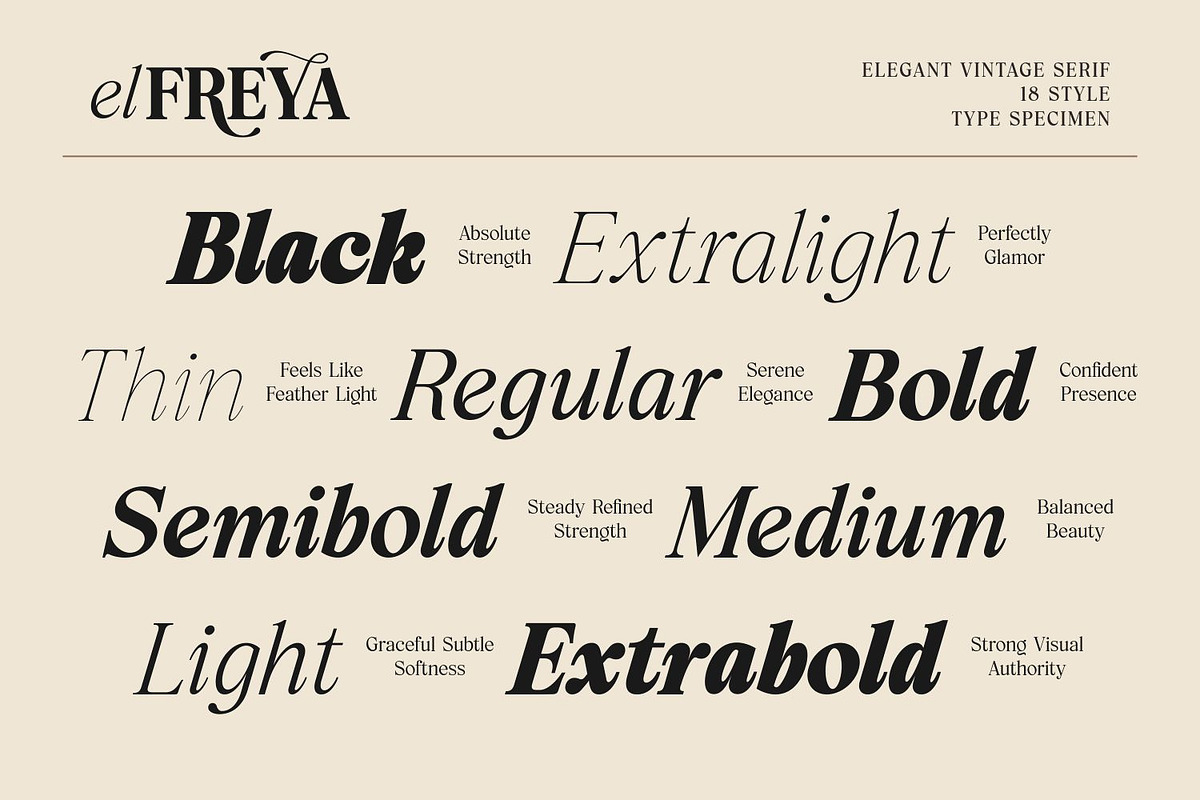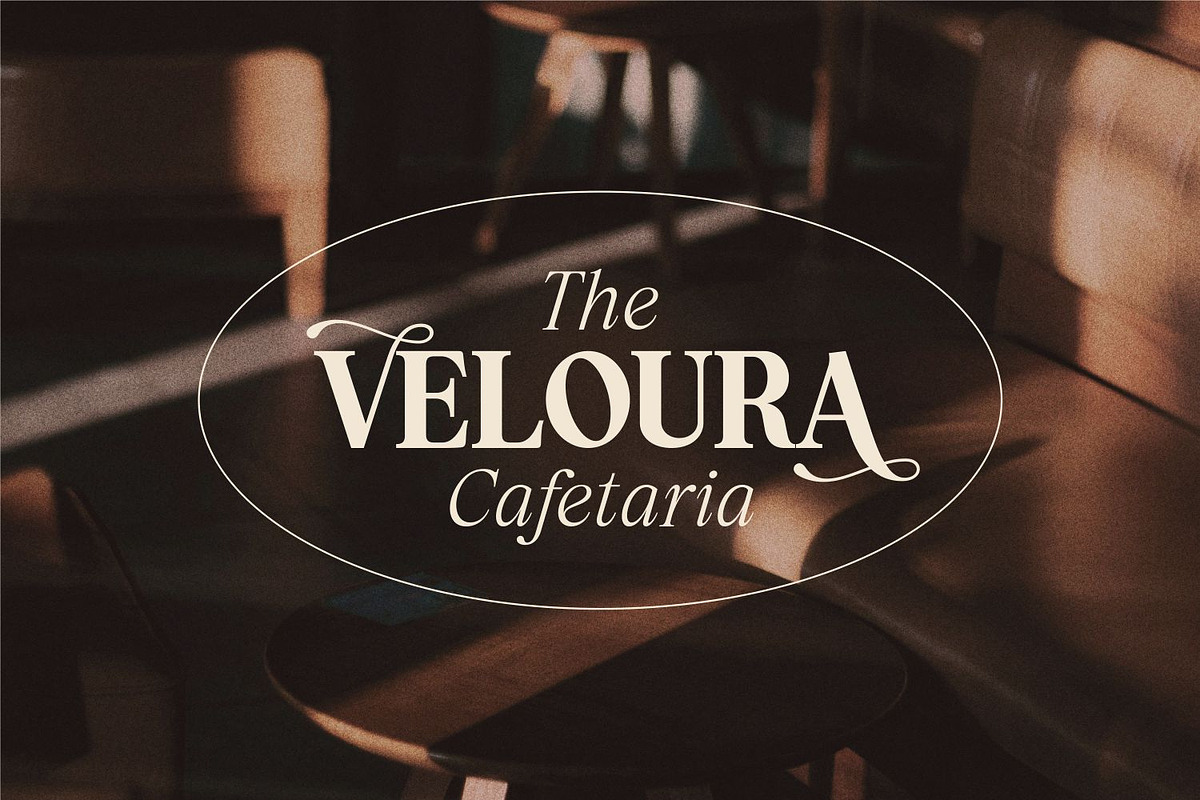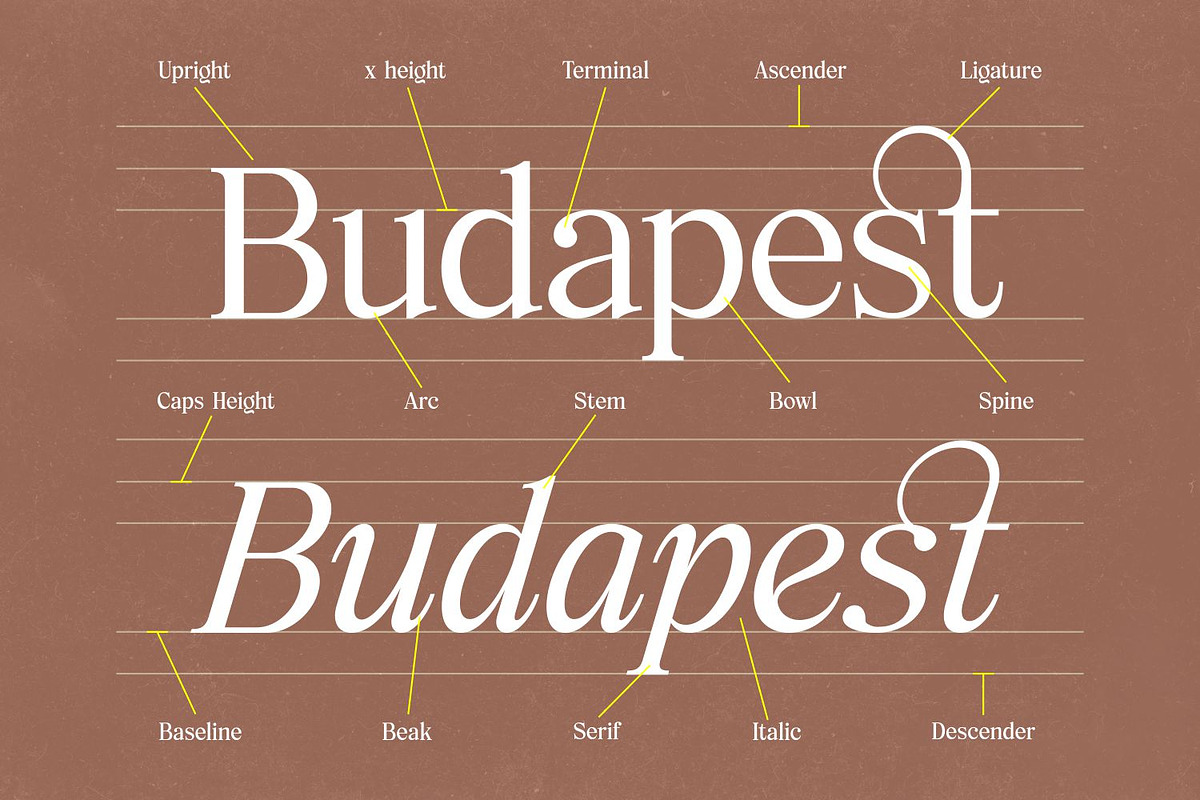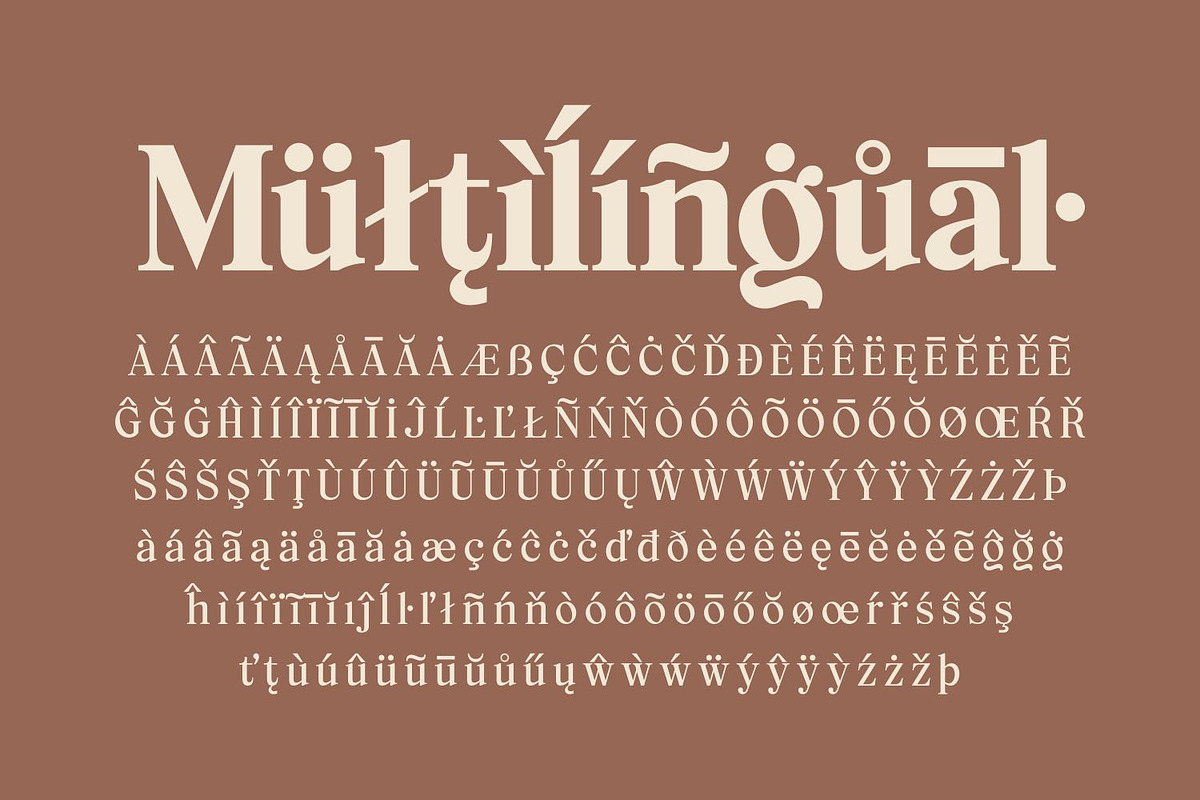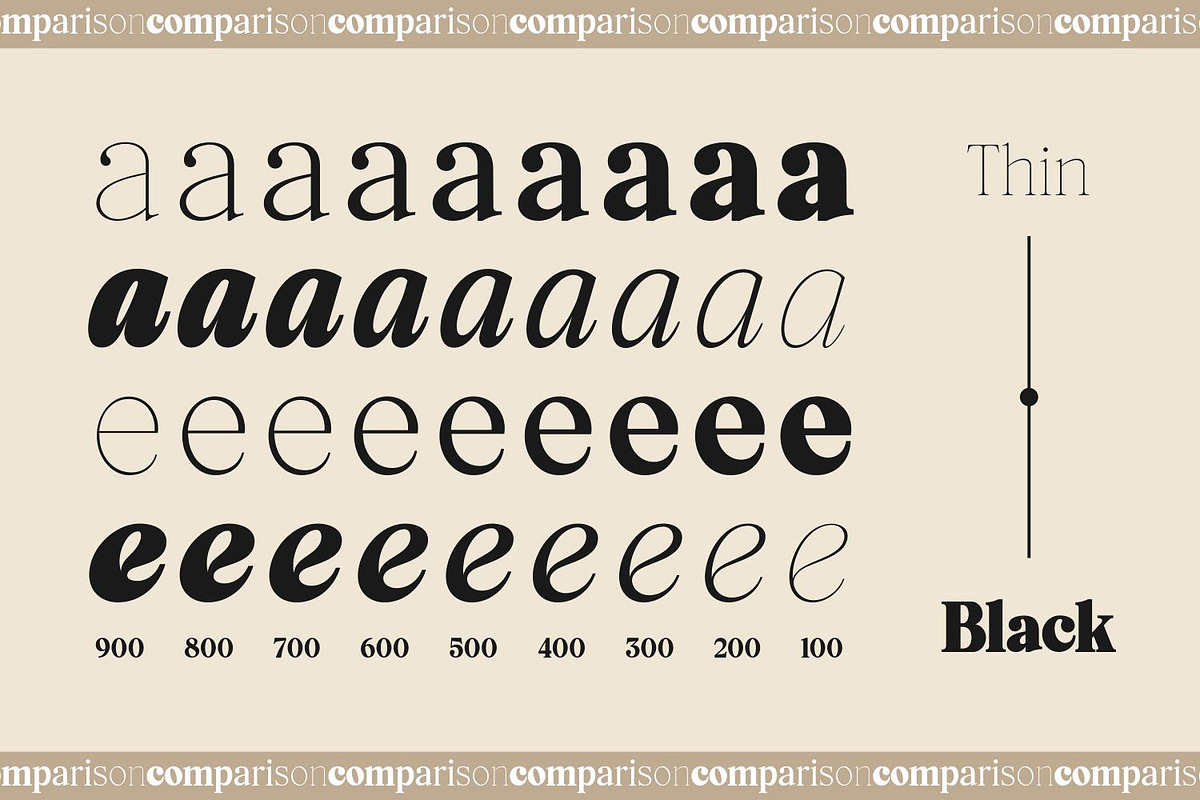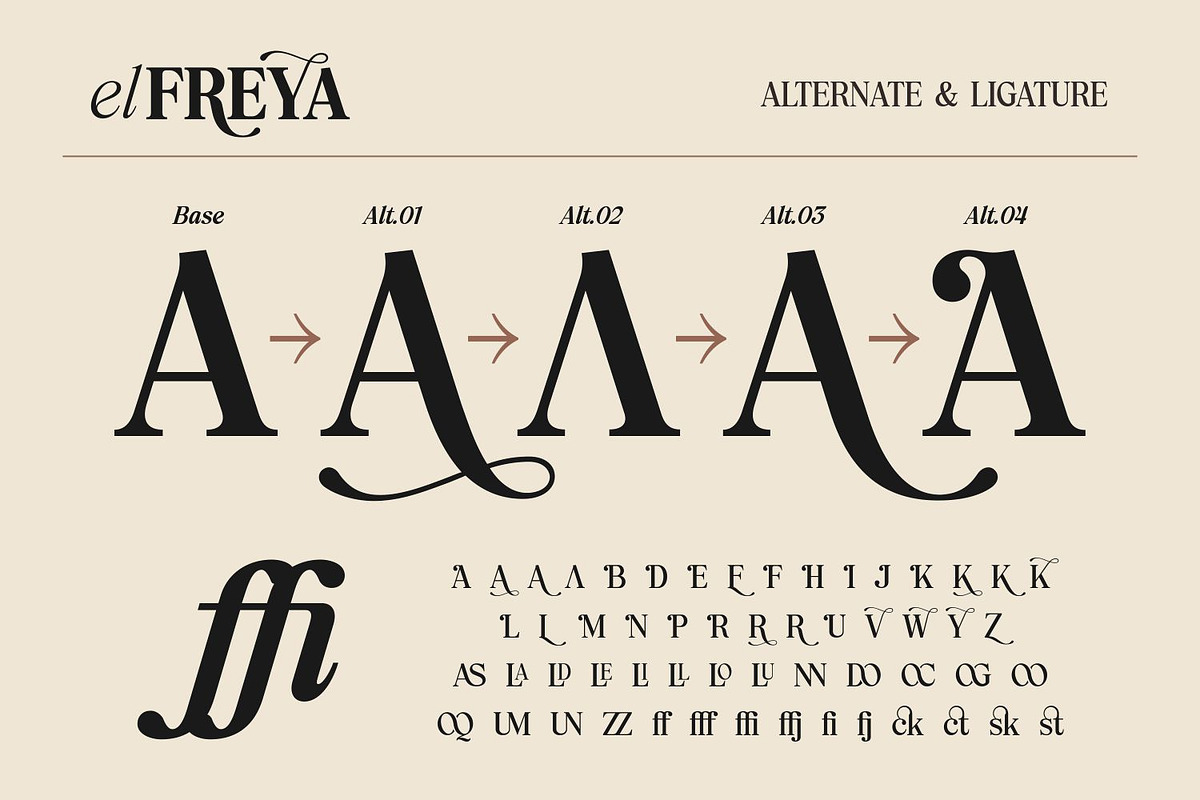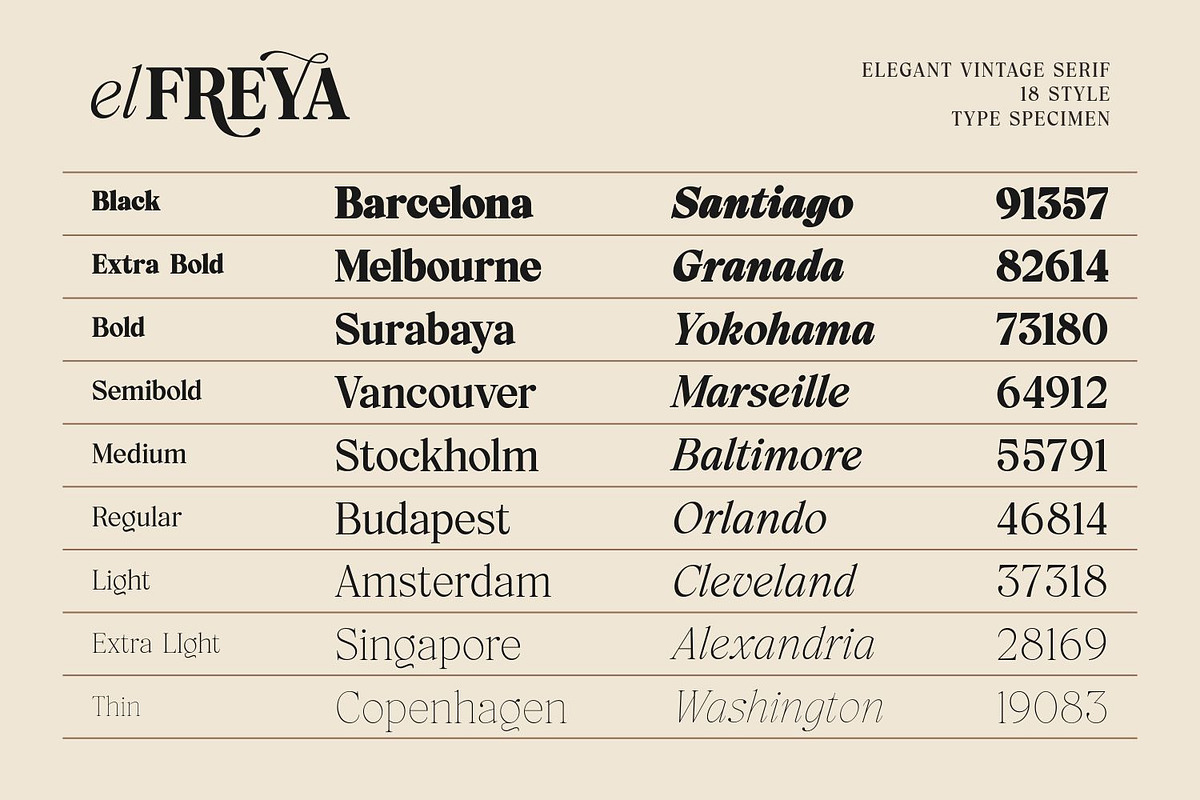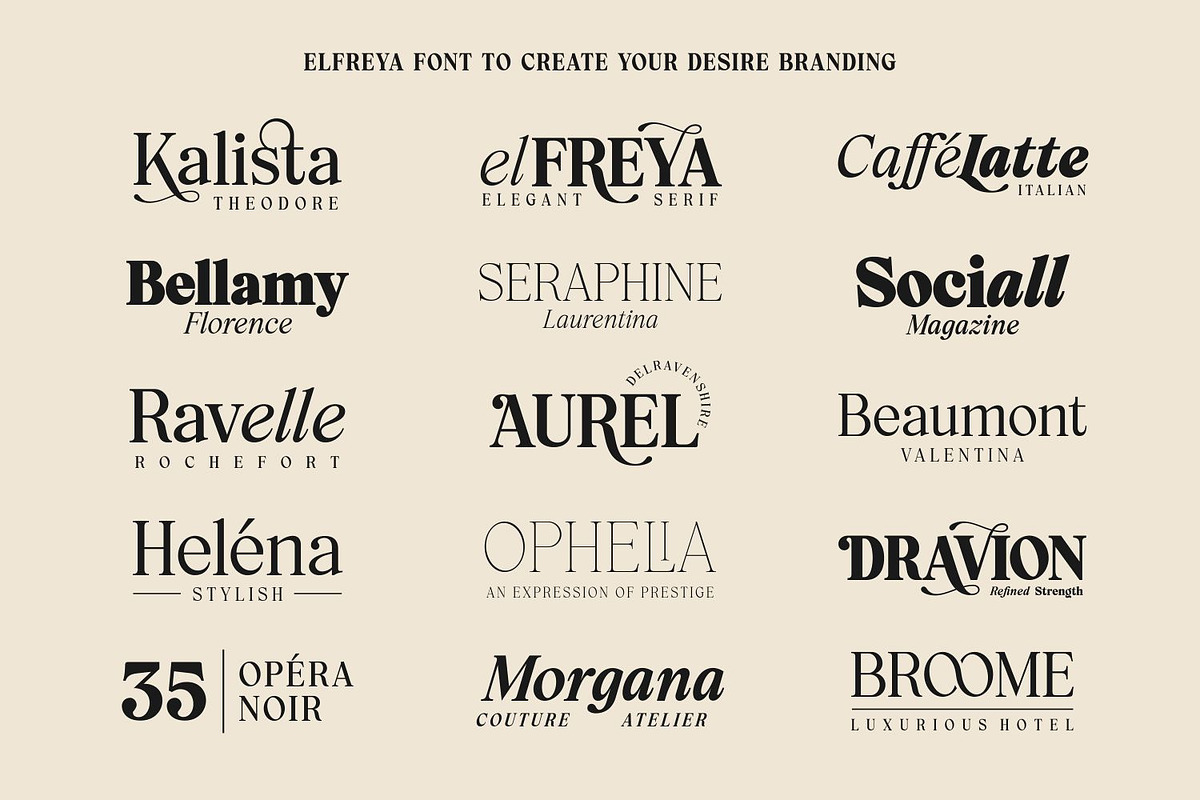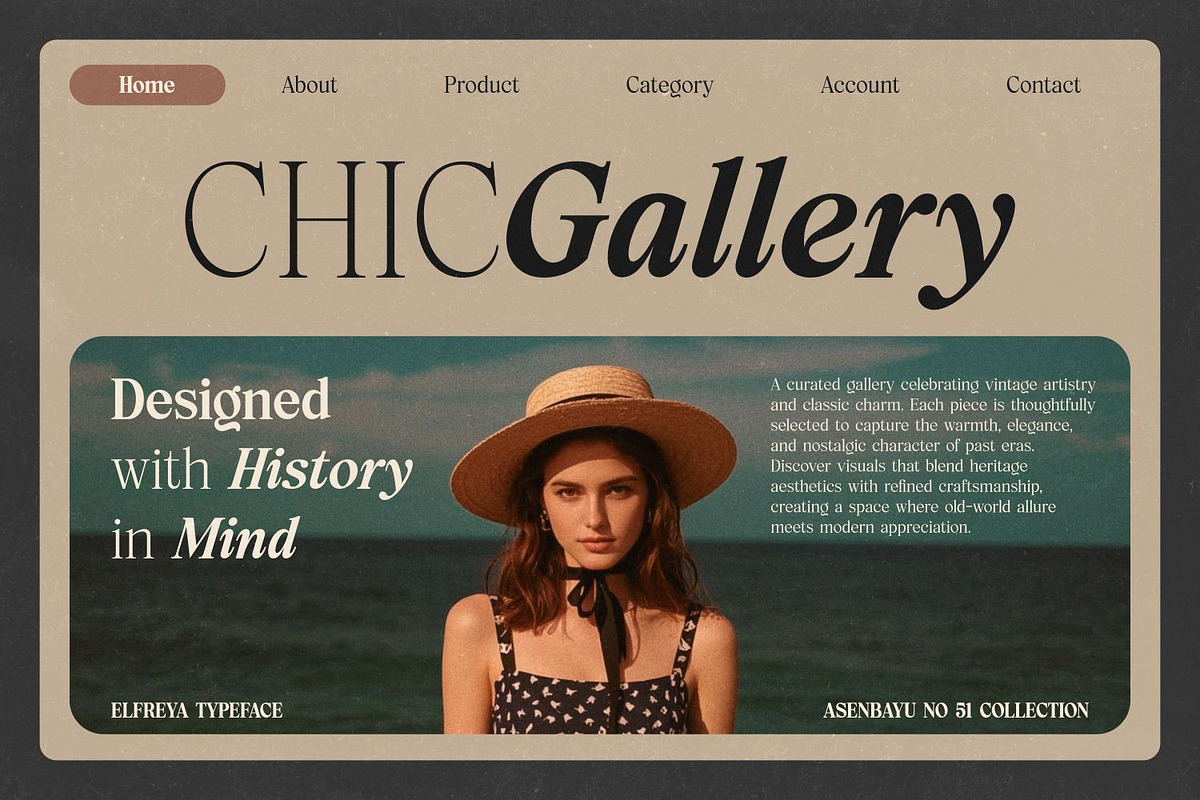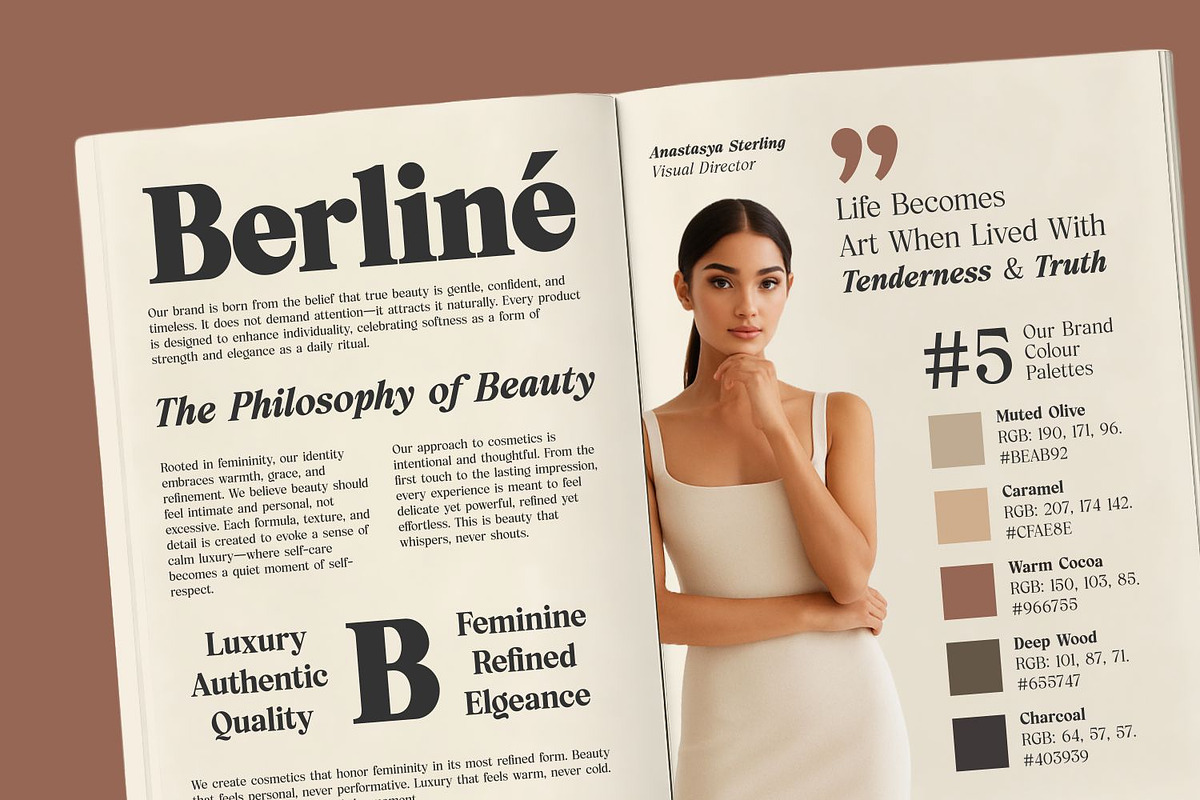
Elfreya - Elegant Branding Font
Elfreya is an elegant vintage serif typeface that blends classic sophistication with timeless charm. Elfreya delivers a graceful and confident presence in every composition. Designed with versatility in mind, Elfreya comes in 18 styles including italics, allowing designers to create rich typographic hierarchies with ease. Its carefully crafted letterforms feature balanced proportions, subtle contrast, and refined details that enhance readability while maintaining a distinctive character.
Elfreya is highly suitable for a wide range of projects, including branding, logos, editorial design, packaging, invitations, fashion, luxury products, posters, and digital applications. Whether used for headlines or long-form text, Elfreya adds a sense of elegance, warmth, and professionalism to any design.
- 18 Fonts, 9 Weights (Thin to Black, include Italic)
- Multiple languages supported